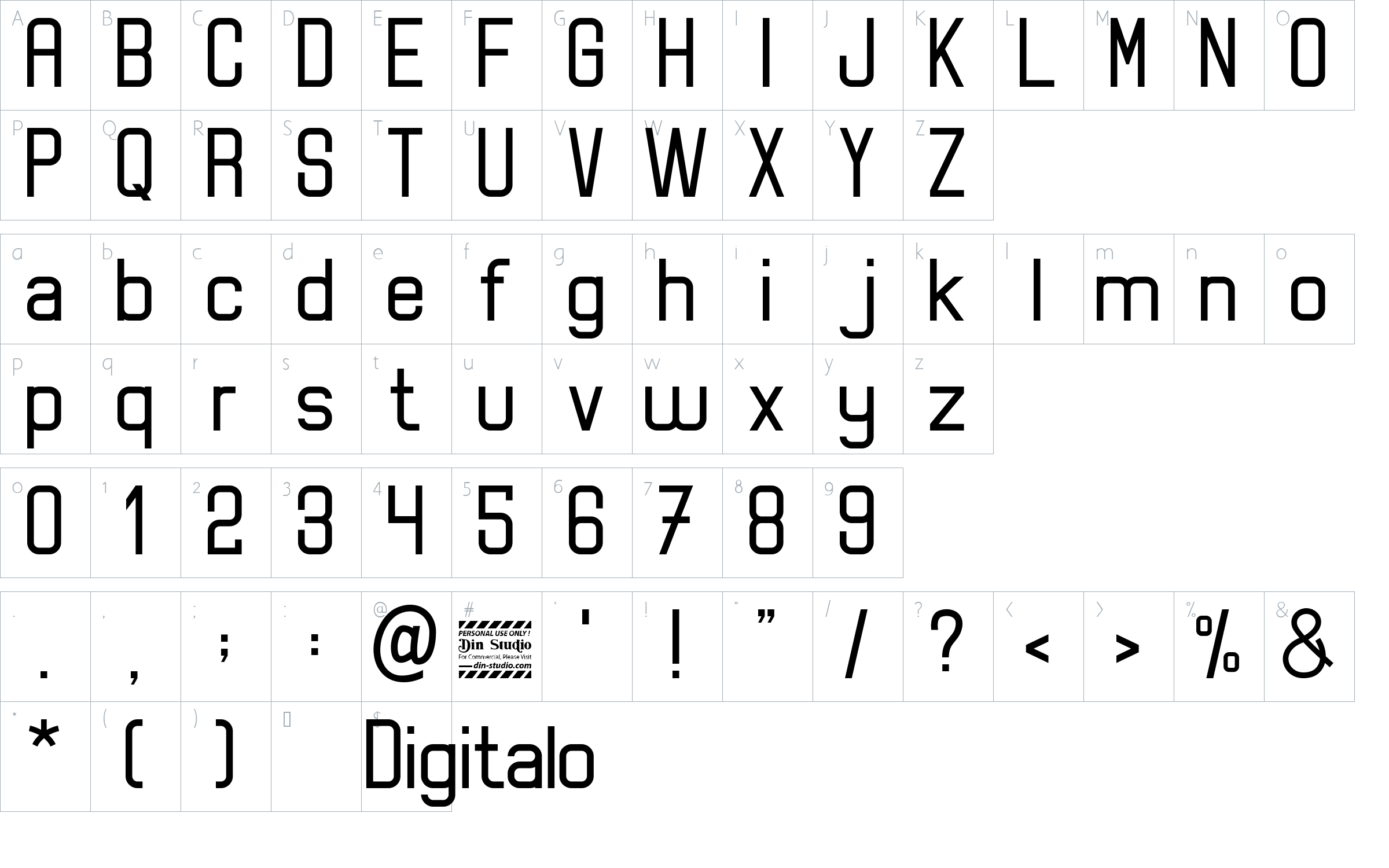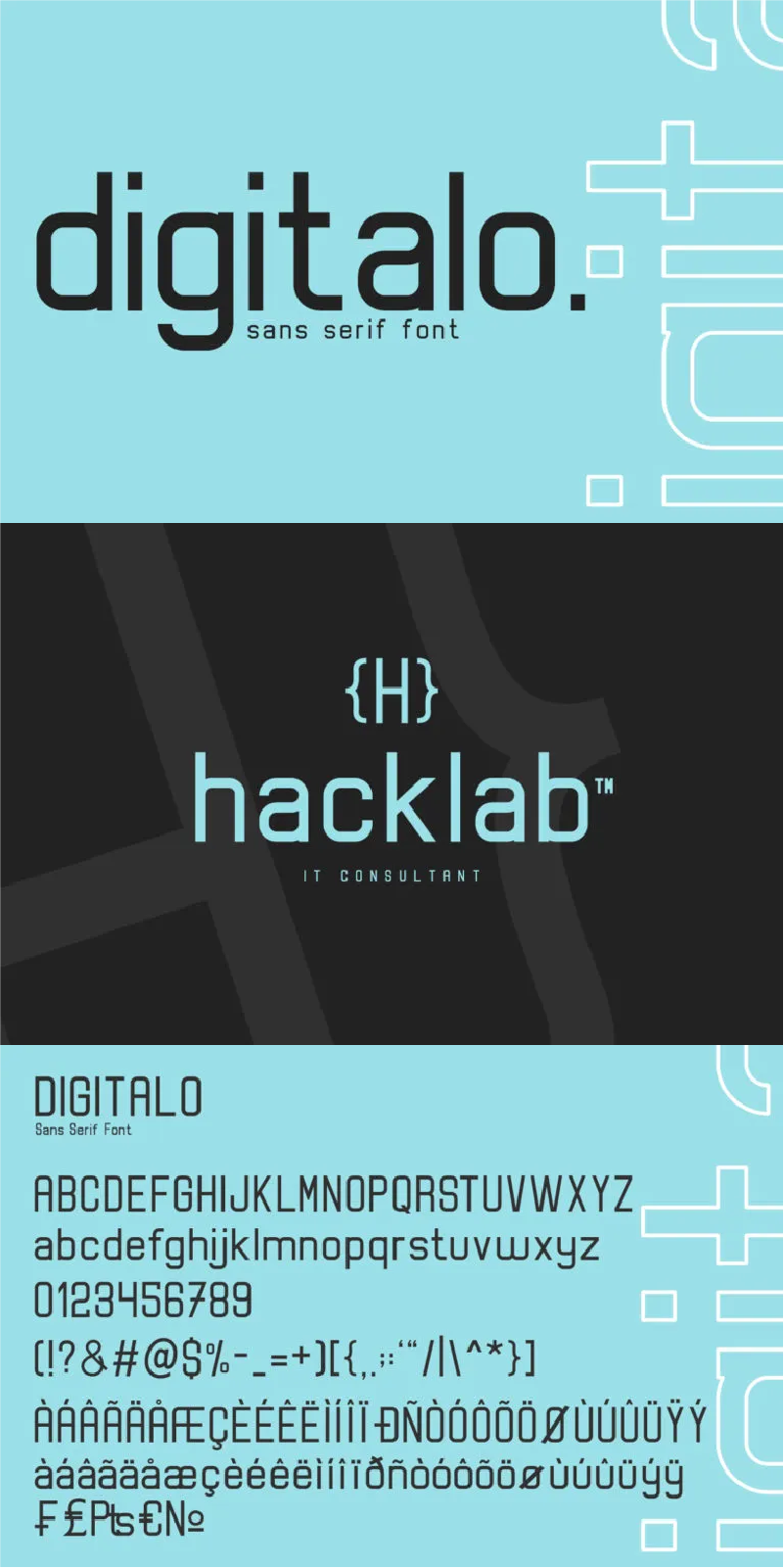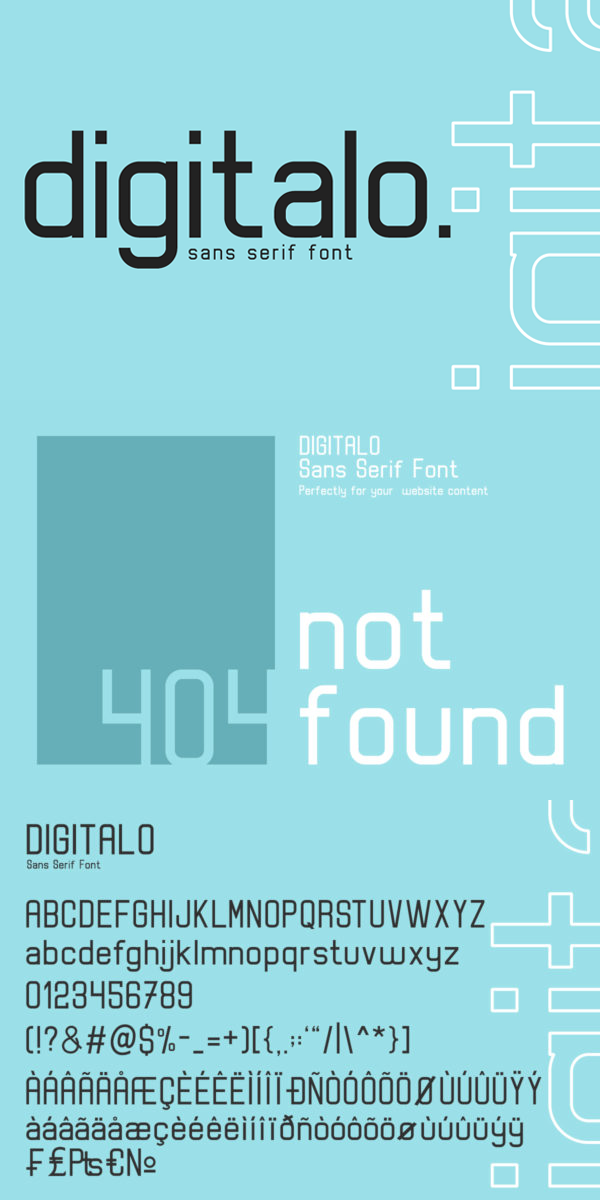
Digitalo Font
About Digitalo
Digitalo is a regular and authentic display font showing abstract shapes in all their eclectic beauty. This font will look truly outstanding in a wide range of contexts. It is suitable for your branding, book caver, logotype, packaging, and more.